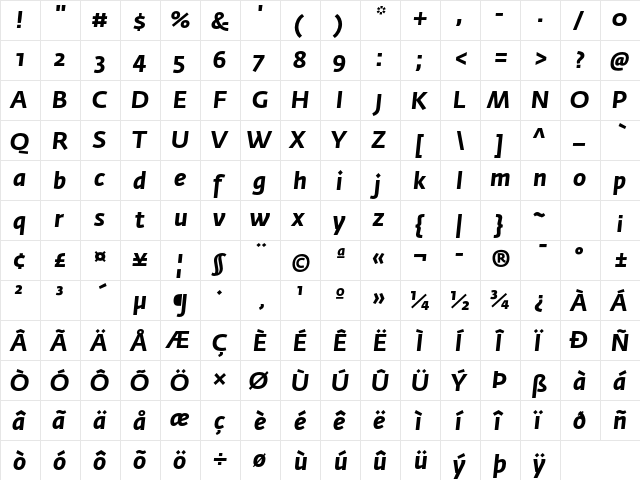
Fedra Sans Std Bold Italic Font Preview
| Foundry | Peter Bilak https://www.typotheque.com) |
| Designer | Peter Bilak https://www.typotheque.com) |
Design Context for Fedra Sans Std Typeface
Fedra Sans Std takes a measured approach to typography — its balanced proportions and neutral character make it a reliable workhorse for both digital and print work. The slanted form adds forward momentum and visual energy. Its bold stroke weight gives it real presence on the page.
Pro Tip: Try Fedra Sans Std for annotation and caption copy alongside an upright companion — the contrast in angle creates a dynamic but ordered typographic system.